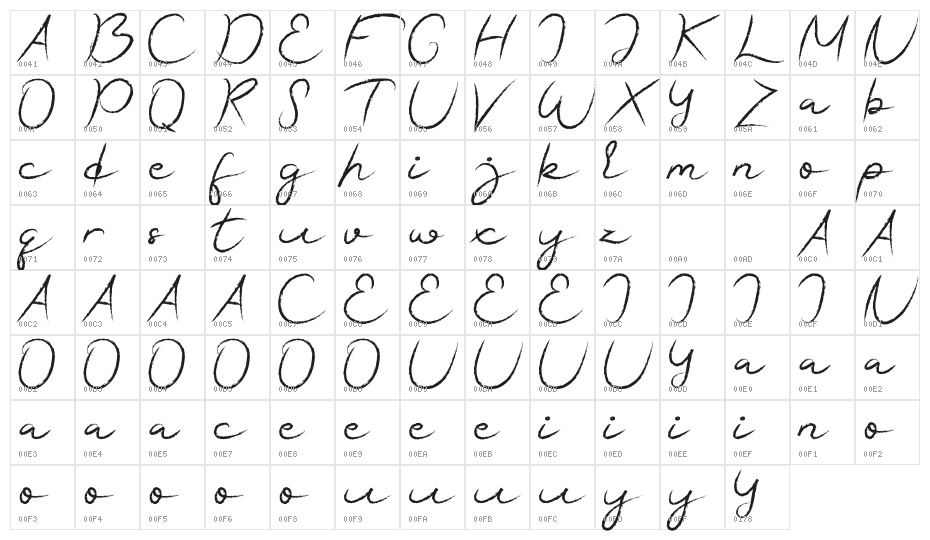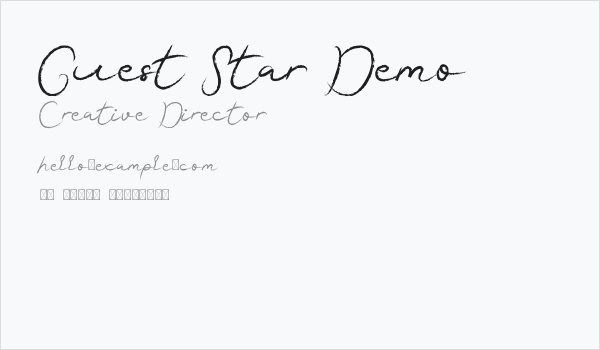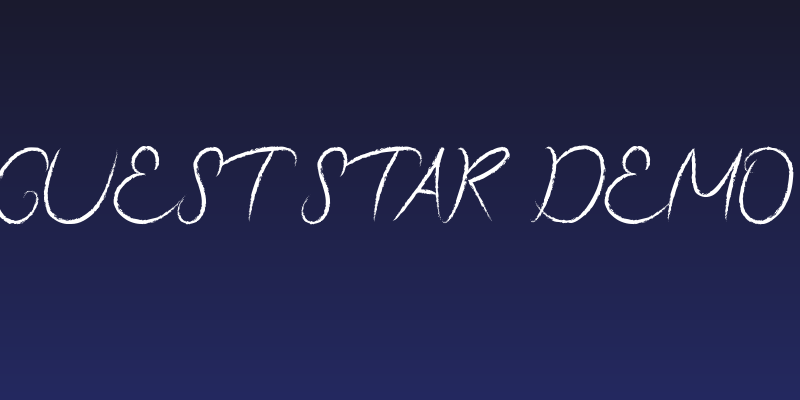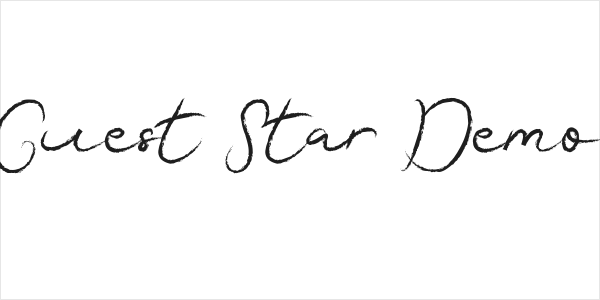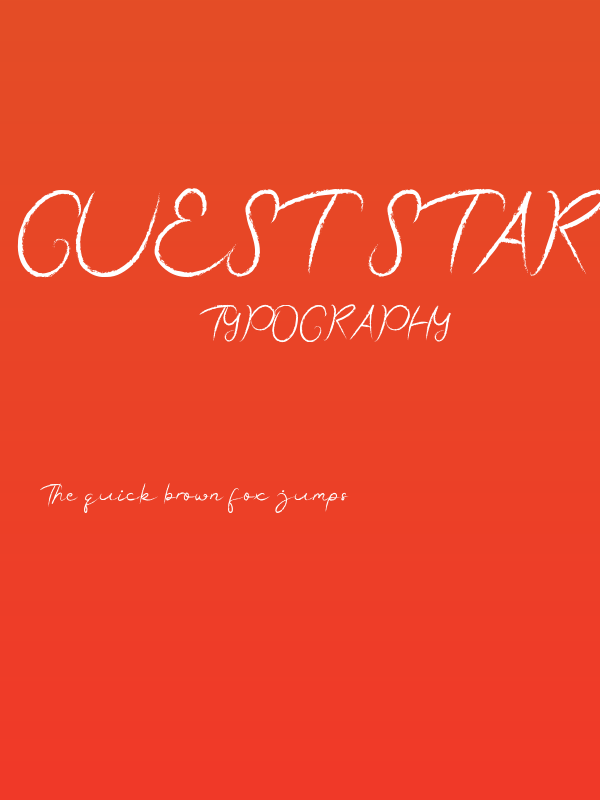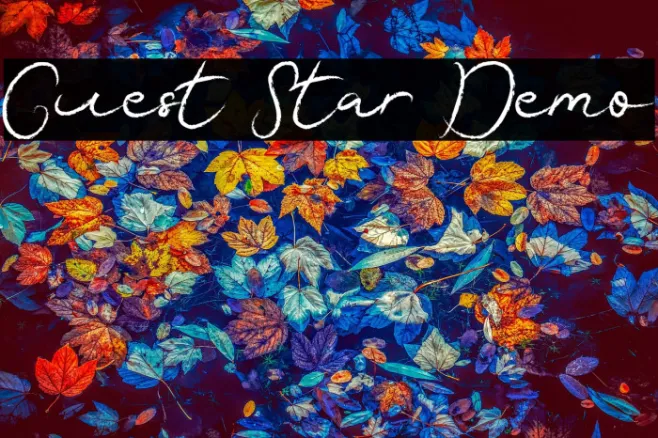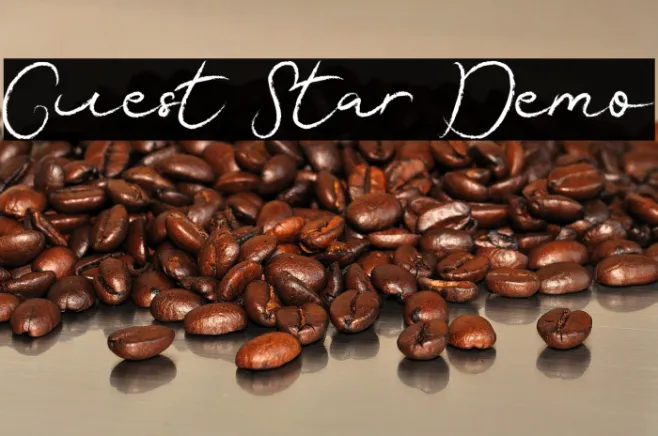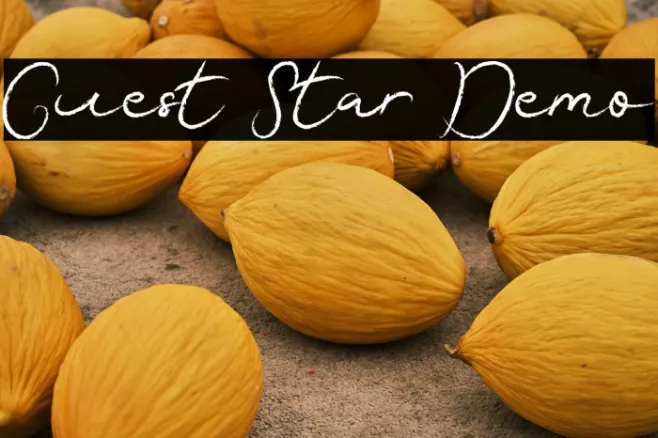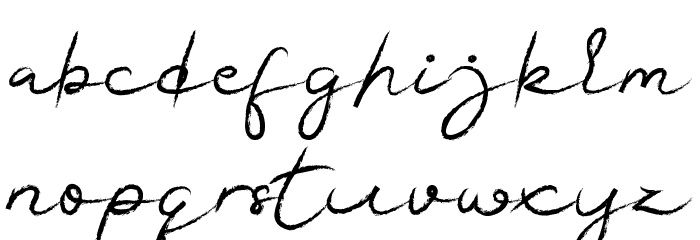
Guest Star Demo Font
Guest Star Demo Description
This font features an elegant, flowing script style that mimics the fluidity of natural handwriting. The uppercase letters are characterized by sweeping curves and elongated strokes, giving them a graceful and sophisticated appearance. The lowercase letters maintain a consistent flow, with gentle loops and rounded forms that enhance readability while preserving the artistic flair. The overall design is reminiscent of classic calligraphy, yet it maintains a modern touch with its clean lines and balanced proportions. This font is perfect for projects that require a personal, handwritten feel, such as invitations, greeting cards, or branding materials that aim to convey elegance and warmth.